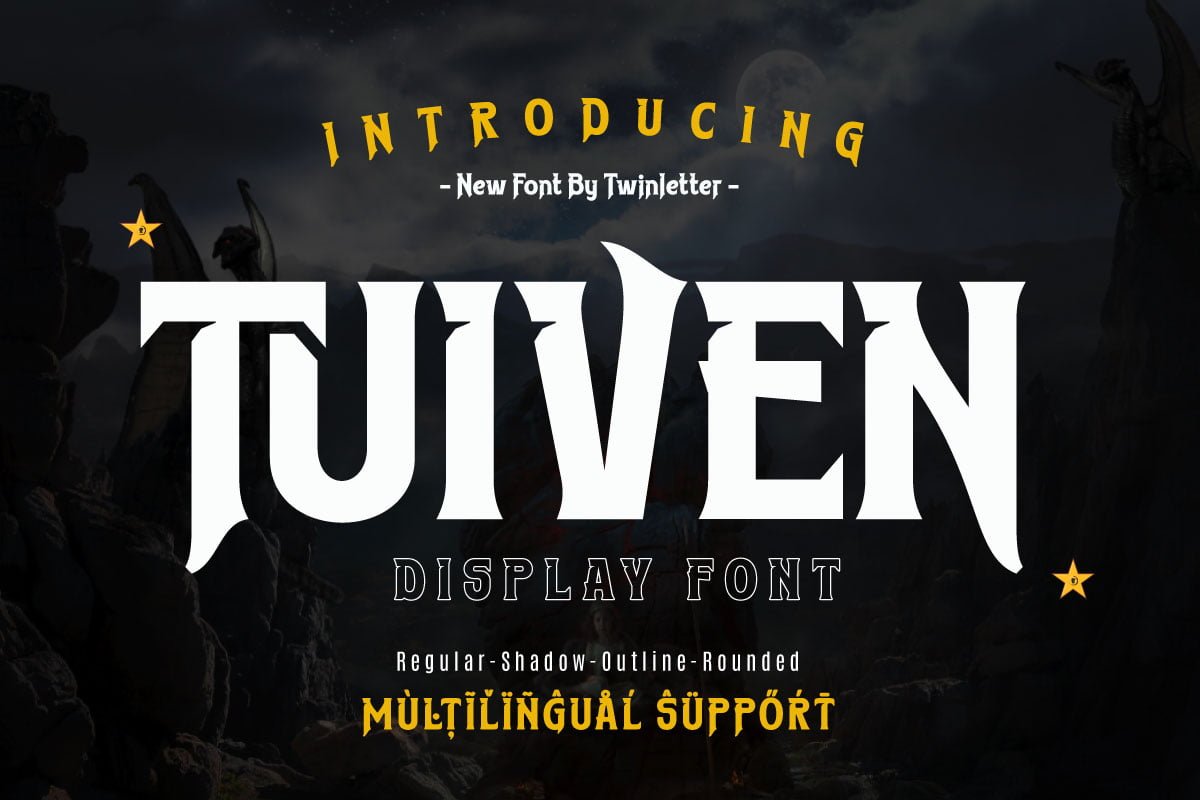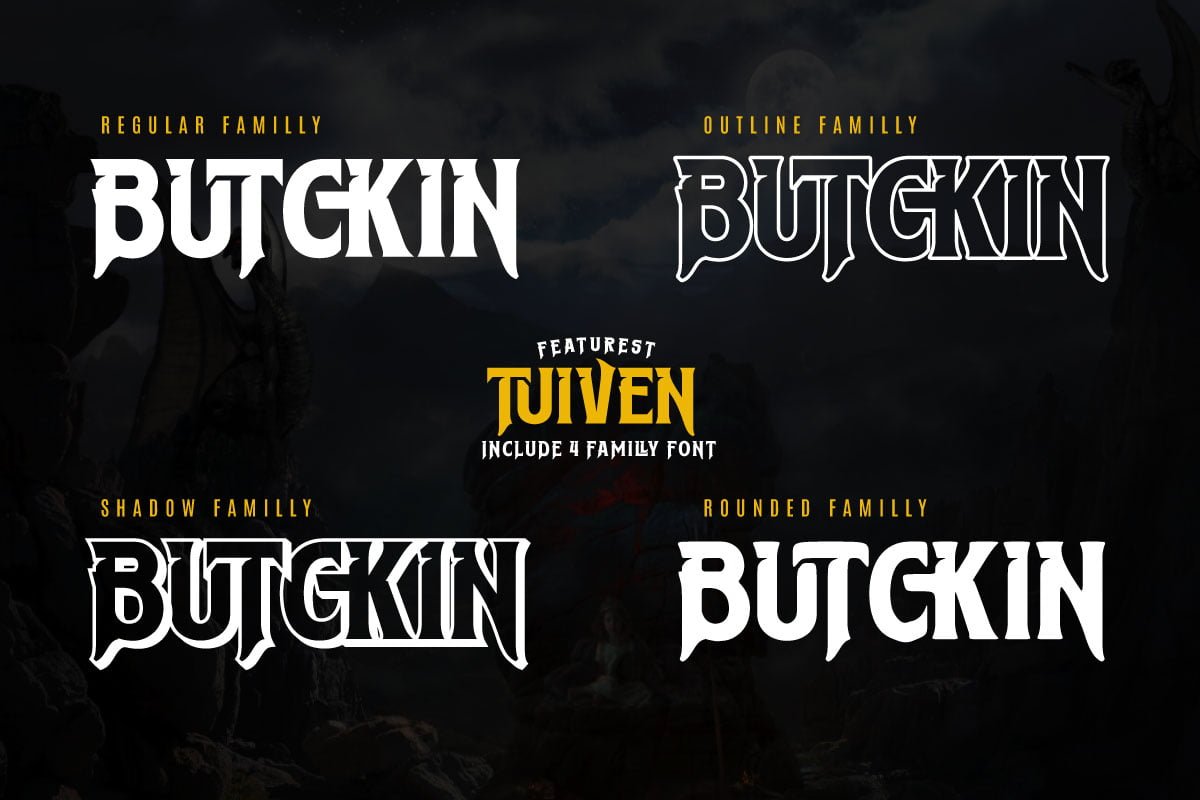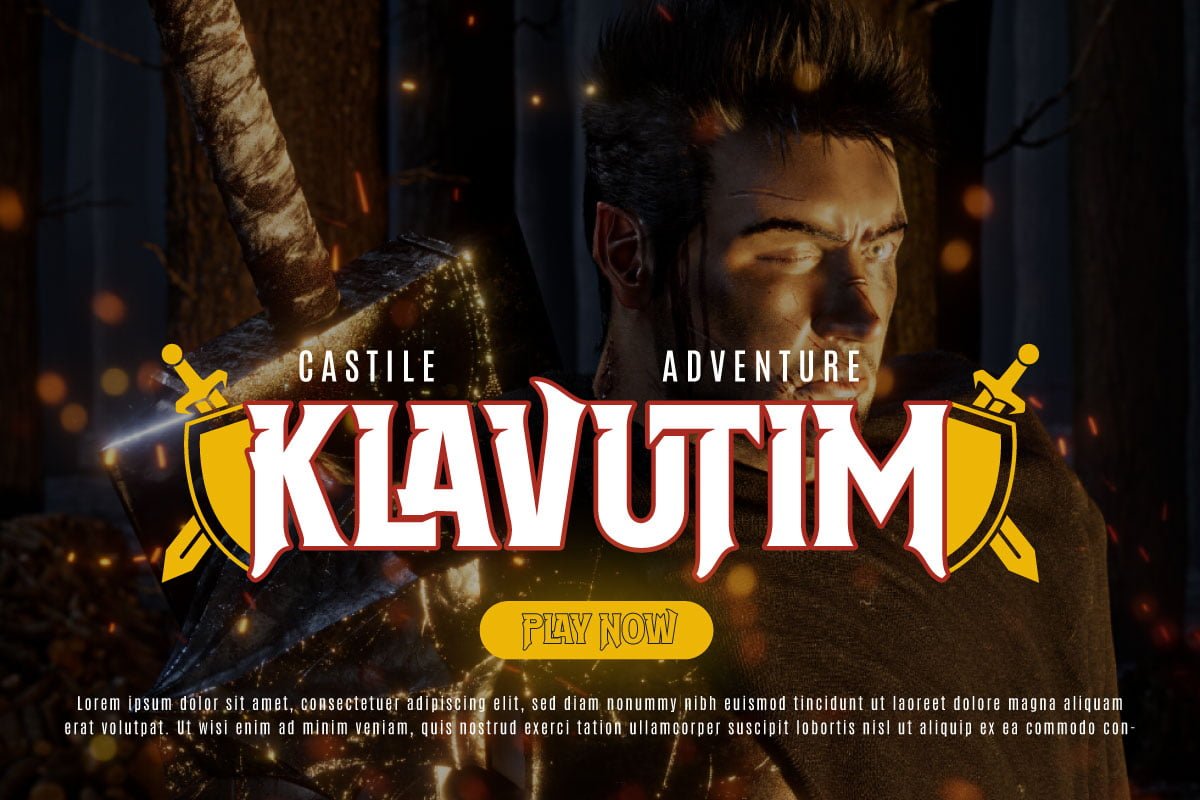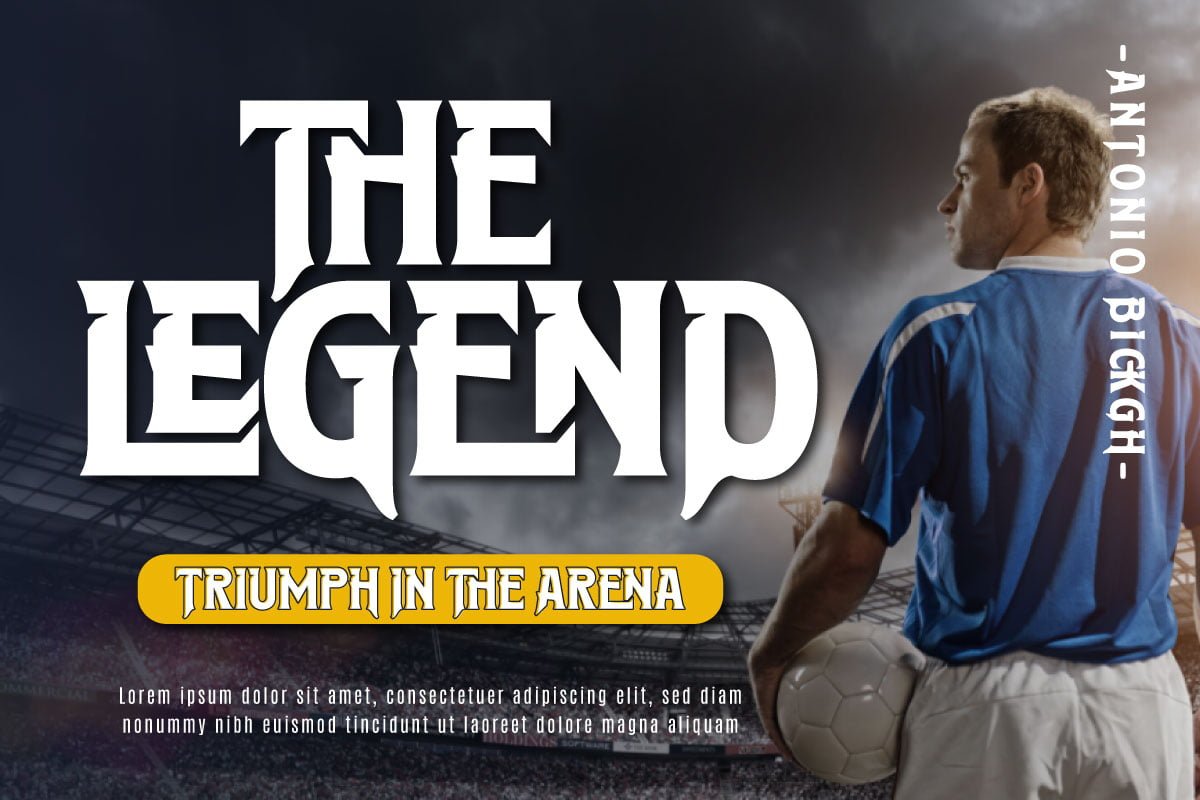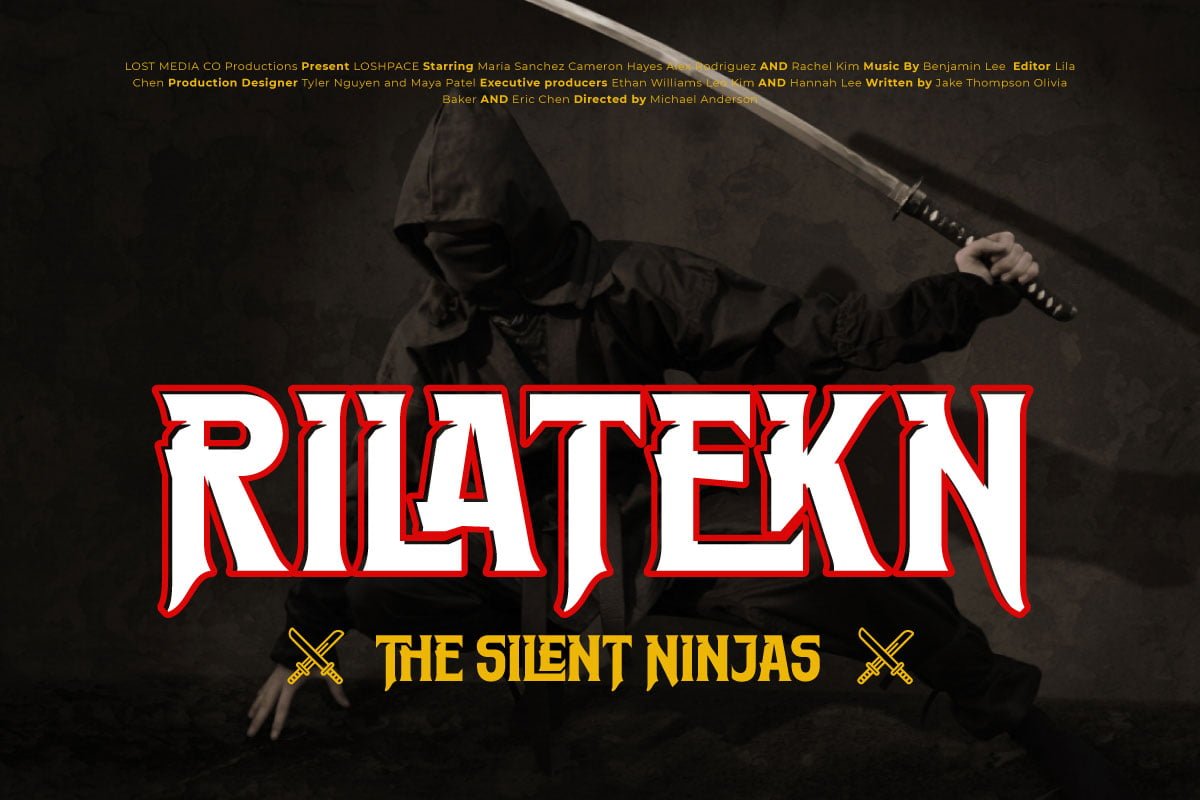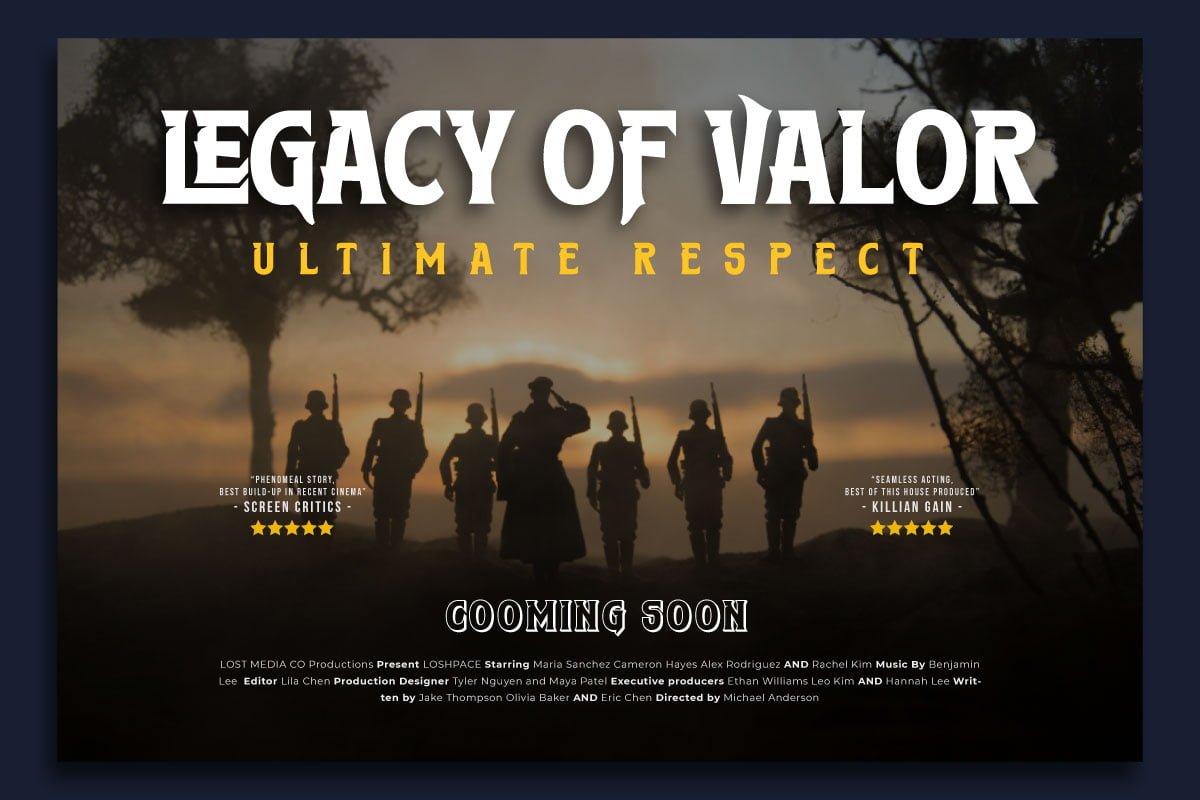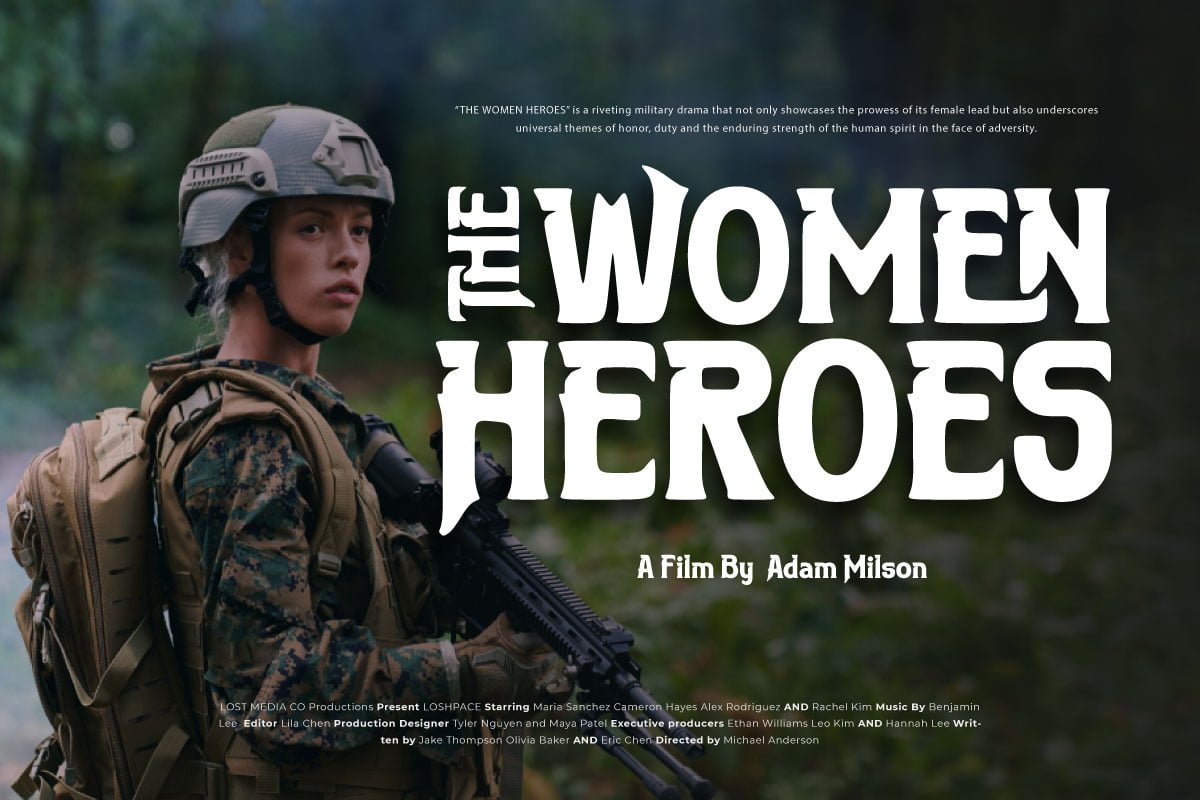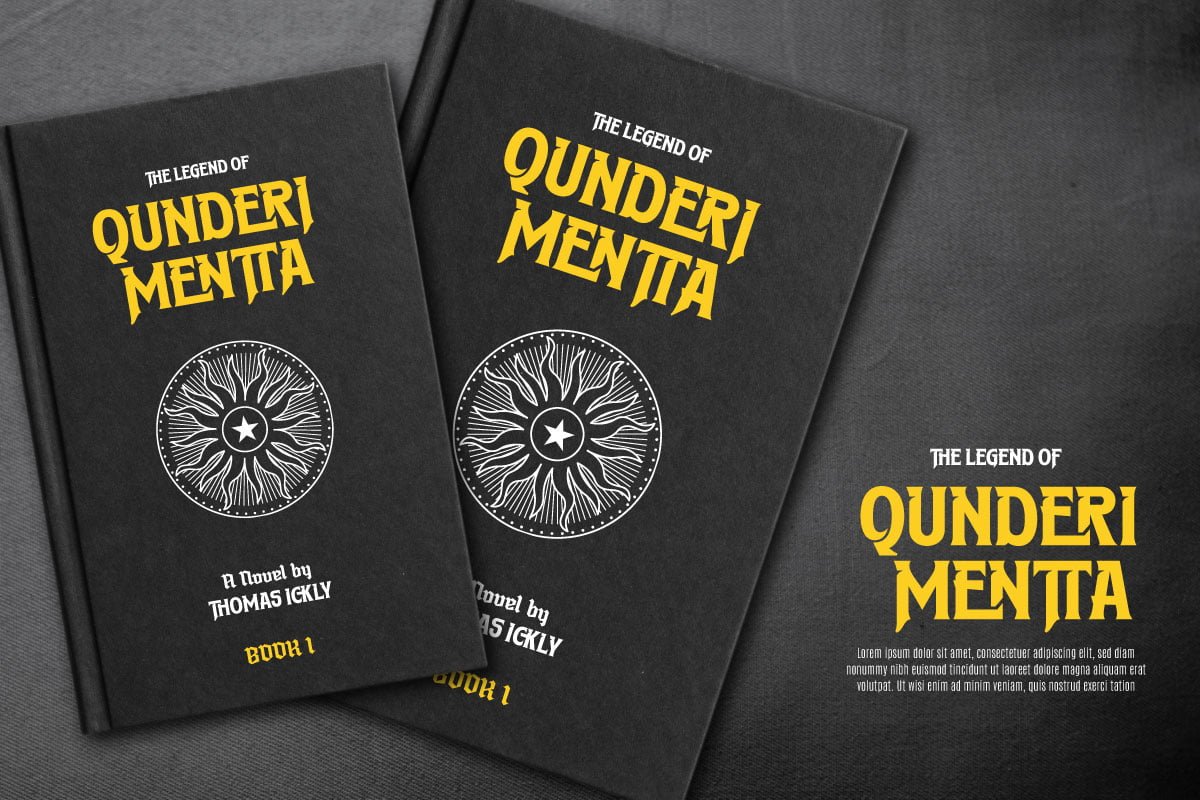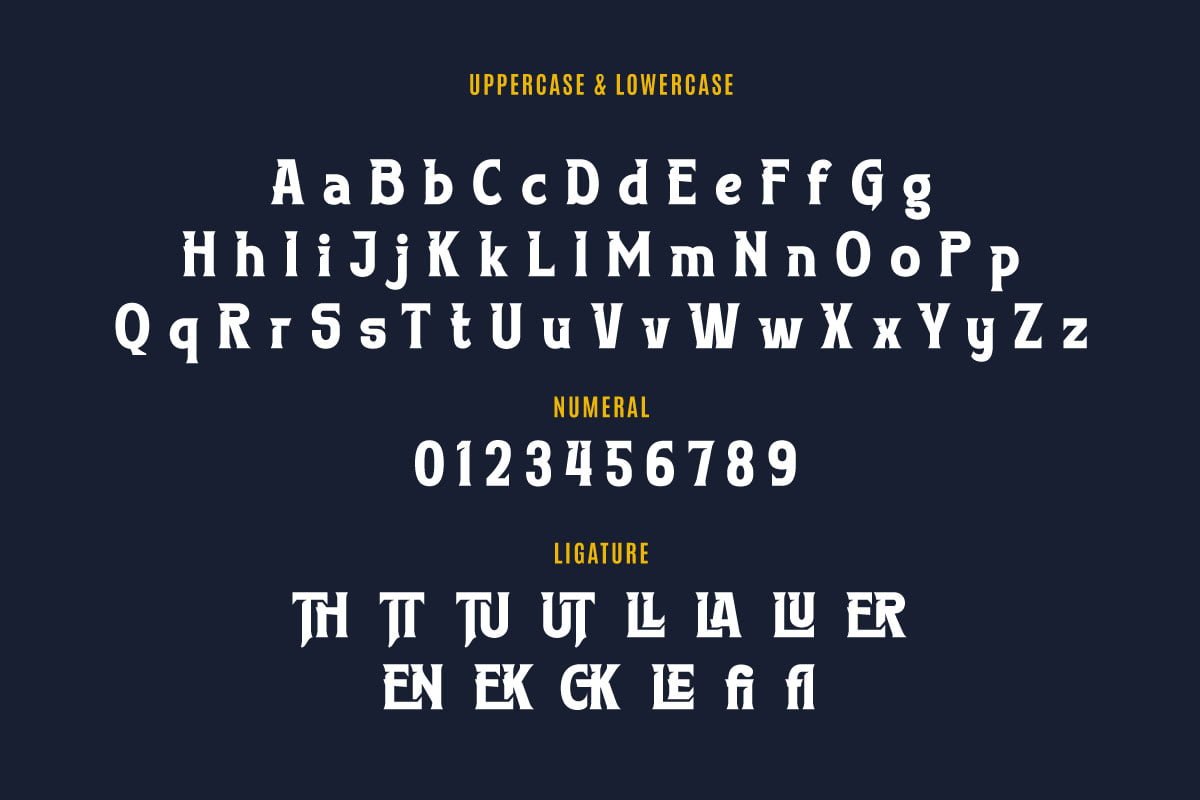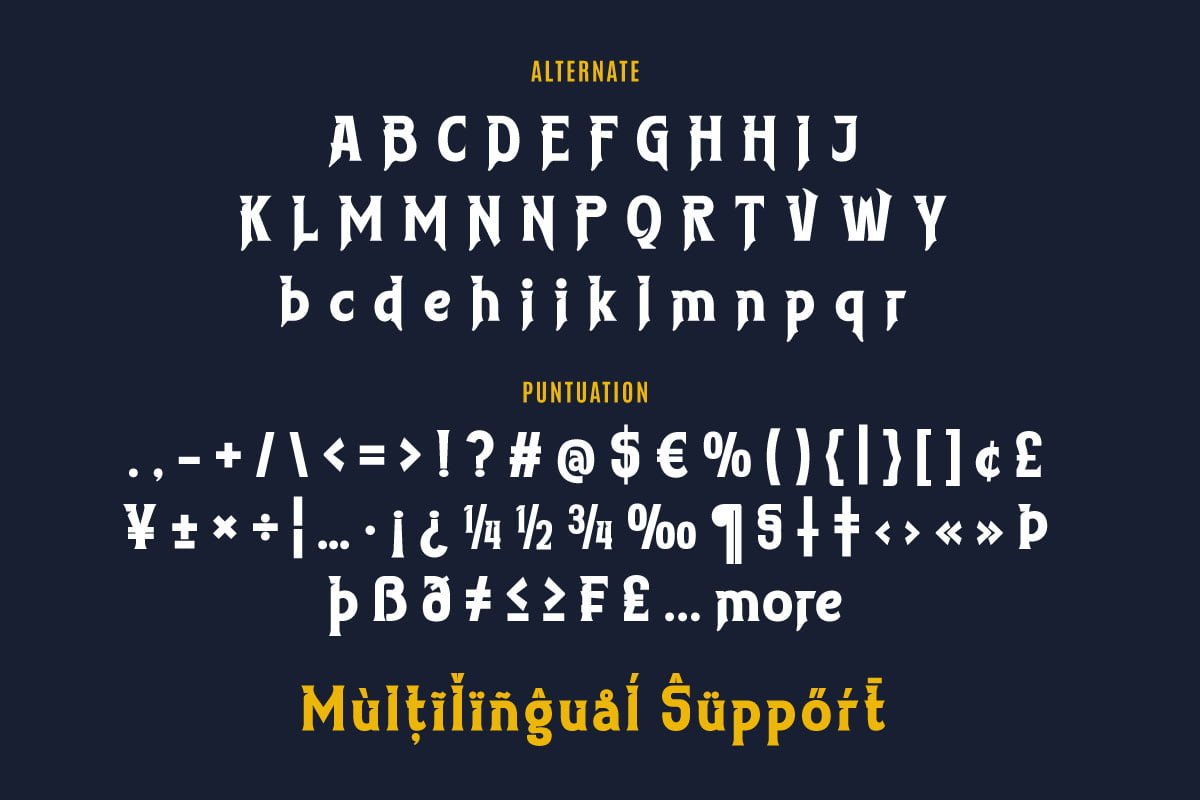
Tuiven – Movie Display Font
THE HEROES
Shadow
THE HEROES
Rounded
THE HEROES
Outline
THE HEROES
Tuiven is a typeface created specifically to add a dramatic and cinematic feel to design projects related to the world of film. This font combines elegance with boldness, creating an epic and soulful look.
The letters in Tuiven have an artistic and strong design, with meticulous detail and crisp lines. Each letter creates a sense of boldness and elegance, giving a touch of luxury to the text used. This font is designed to be a highlight, giving a unique identity to a movie title, poster, or other design element.
Tuiven’s color palette tends to be serious and deep, creating a mysterious and dramatic feel befitting a serious or epic film genre. Despite this, this font still brings modern elements to maintain a balance between classic elegance and relevant aesthetics.
Tuiven is suitable for use in film projects, trailers, or film promotions, where visual beauty and dramatic impact are appreciated. With a majestic appearance and full of character, this font exudes an aura of seriousness and professionalism, making it the perfect choice for capturing the audience’s attention in a cinematic context.